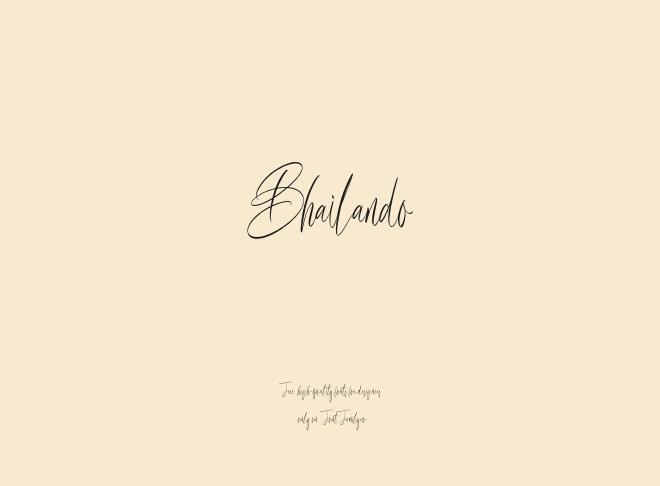
Bhailando Font
Bhailando Font, designed by Creative Minds, is a unique handwritten script font that embodies a playful yet modern aesthetic. Released in 2021, it's an excellent choice for designers who aim to inject a touch of whimsy and freshness into their designs. This font stands out with its fluid, decorative characters that seem to dance on the page, living up to its lively name 'Bhailando'. Ideal for logotypes, headlines, invitations, and more, Bhailando Font can transform ordinary text into a captivating visual. Its unique design elements make it comparable to fonts like Brush Script, but with a more contemporary twist. Bhailando Font is free for personal use, making it a valuable addition to any designer's toolkit. Its charm and versatility are sure to enhance your projects, making them truly memorable.